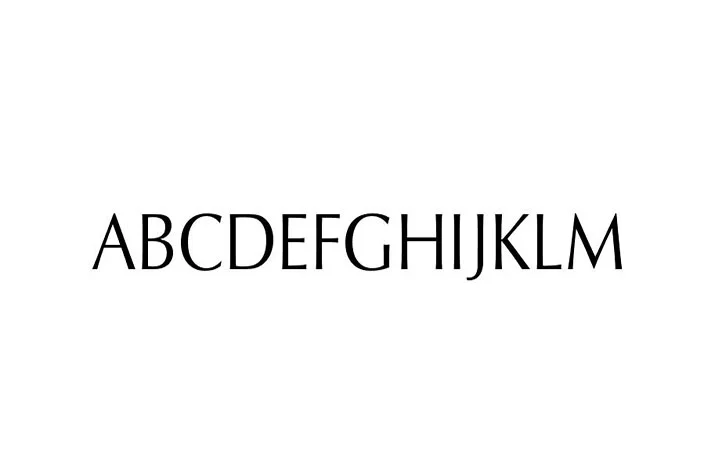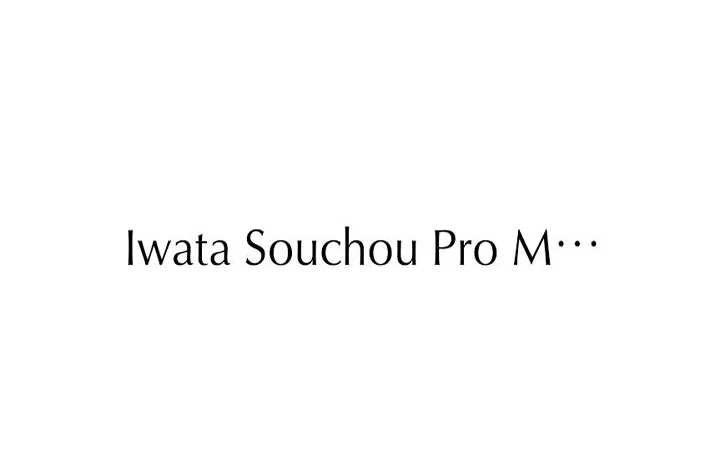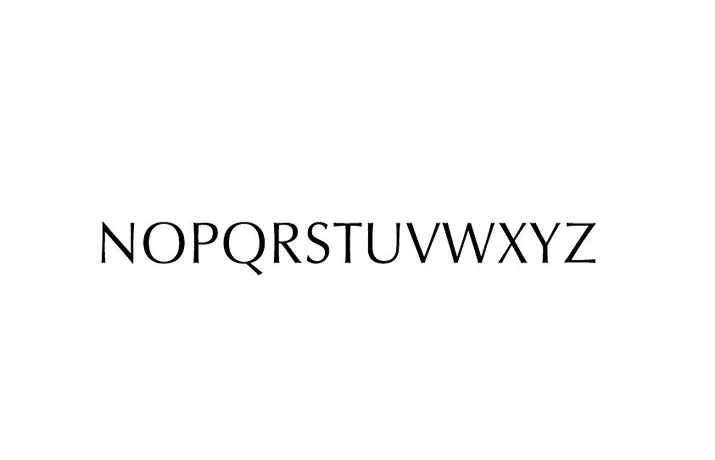
Iwata Souchou Pro Medium Font is a serif typeface designed by Iwata Corporation, a Japanese type foundry. It is based on the “方宋体” (square Song typeface) that was used in metal type.
The font has a traditional Chinese character design with a modern touch. It is characterized by its clear and elegant stroke endings, its balanced proportions, and its smooth curves.
It is a versatile font that can be used for a variety of purposes, including print, web, and digital applications. It is particularly well-suited for text-heavy documents, such as books, magazines, and newspapers.
It can also be used for headlines, logos, and other branding materials. It also includes a number of OpenType features, such as small caps, ligatures, and contextual alternates.
Iwata Souchou Pro Medium is a high-quality serif font that is both elegant and versatile.